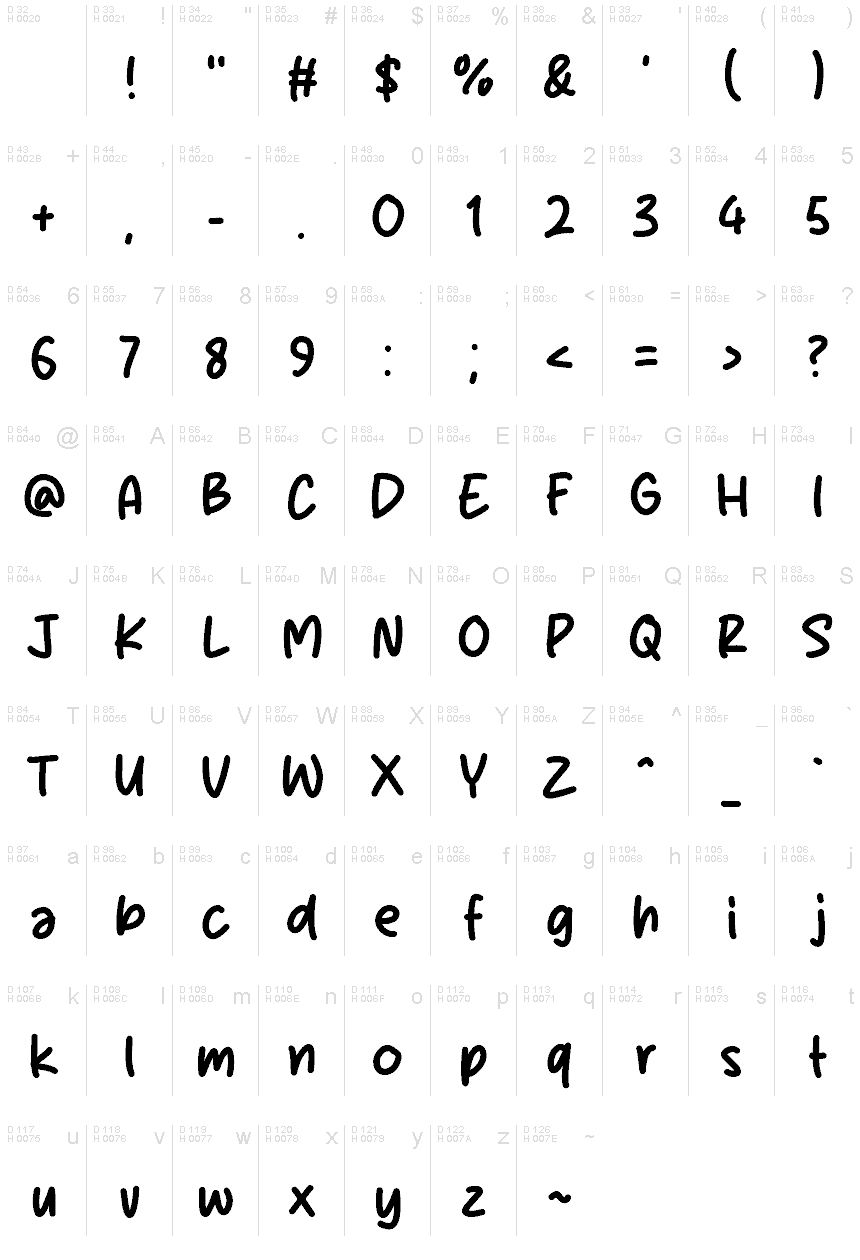
Bandal Skies
We’ve all been there, that point where you really need something, and a strong one. Something that conveys your message in a way that reflects the uniqueness of your brand, and this is exactly what you get when you download Bandal Skies font, presented by MJType.
The free script font is characterized by its thick, playful strokes and curved lines that give your texts an approachable and friendly vibe.
This is why Bandal Skies is perfect for business, advertising, and children-related projects and can be used for branding texts, apparel designs (mugs, t-shirts, notebooks etc.), greeting cards, labels and tags, signage, food, beverage packaging, and many more. You can add a cute handwritten twist to any project using this fantastic font by including it in your digital illustrations, web designs, brochures, posters, banners, social media posts, postcards, or posters, but don’t stop there; the possibilities are endless!